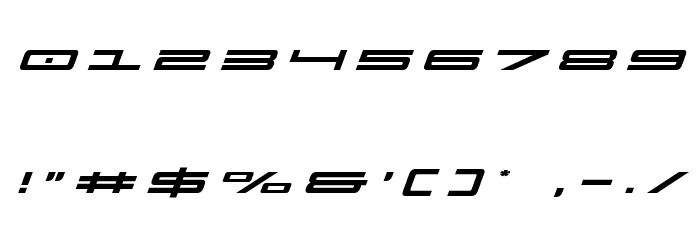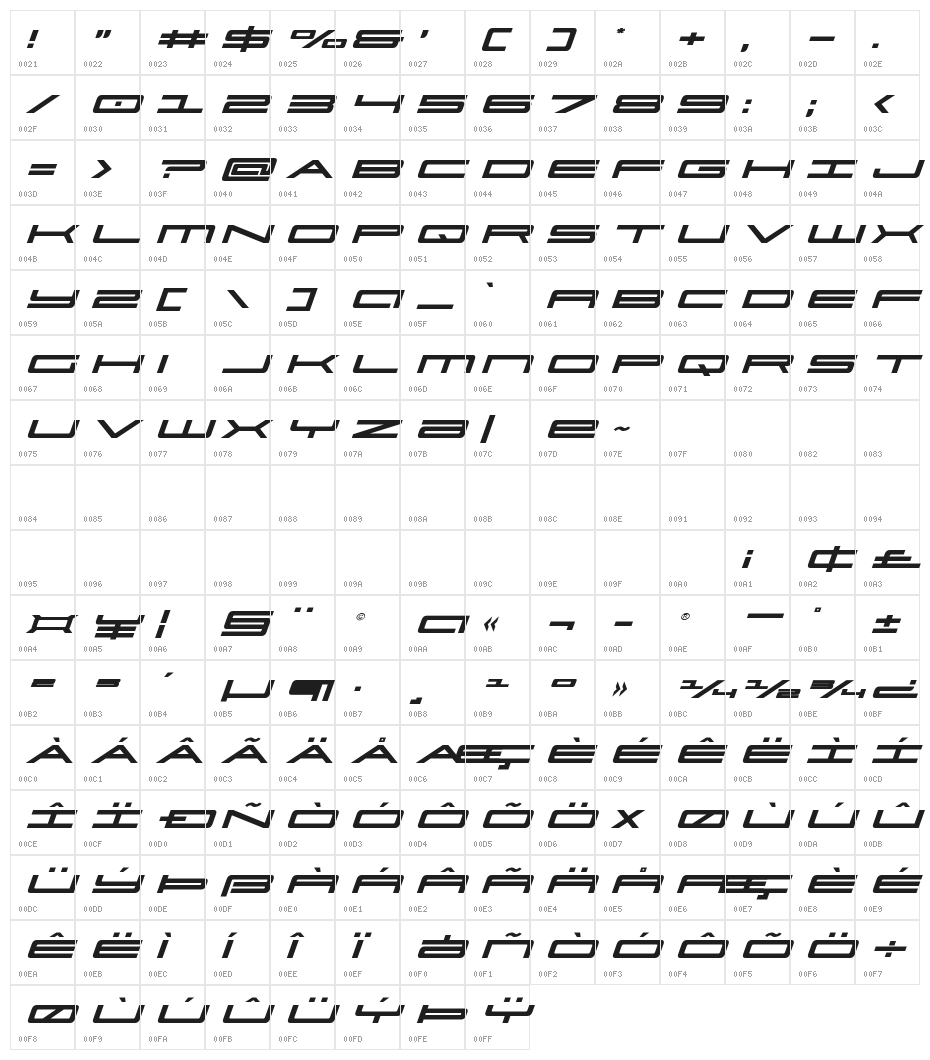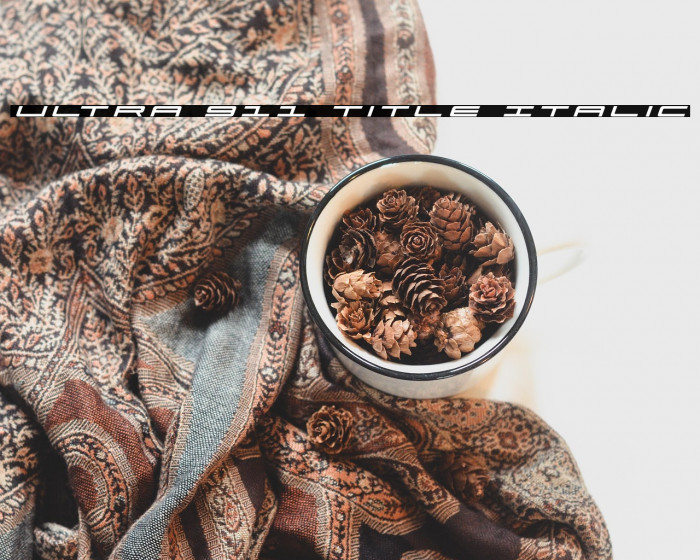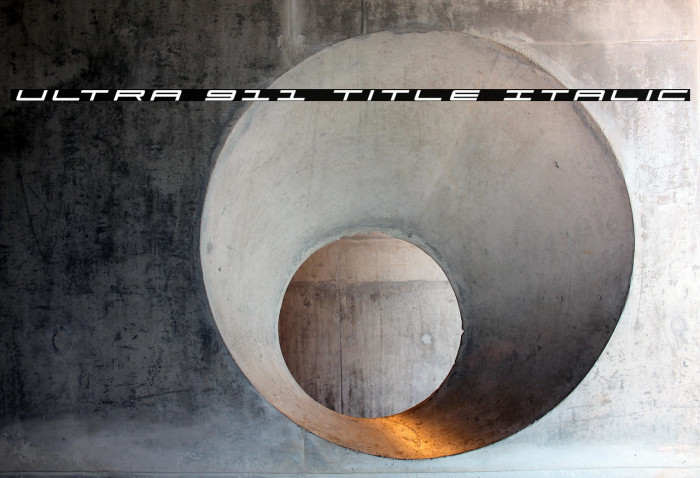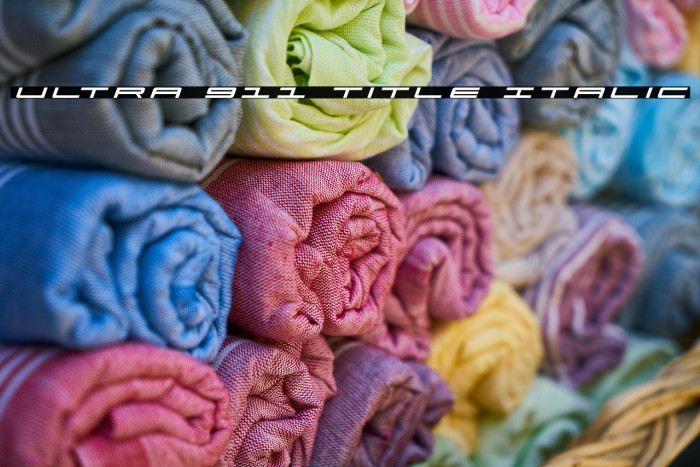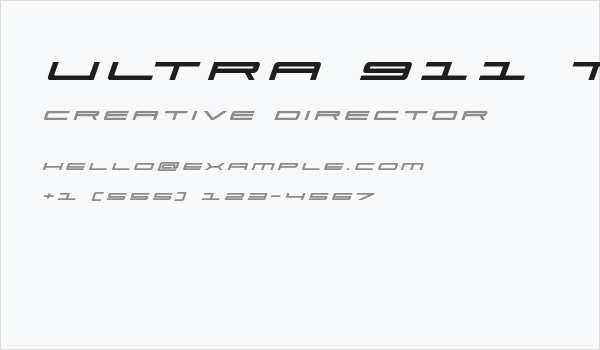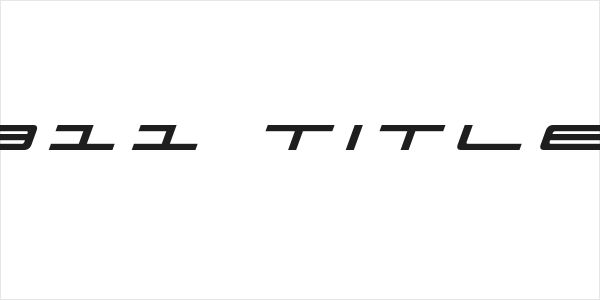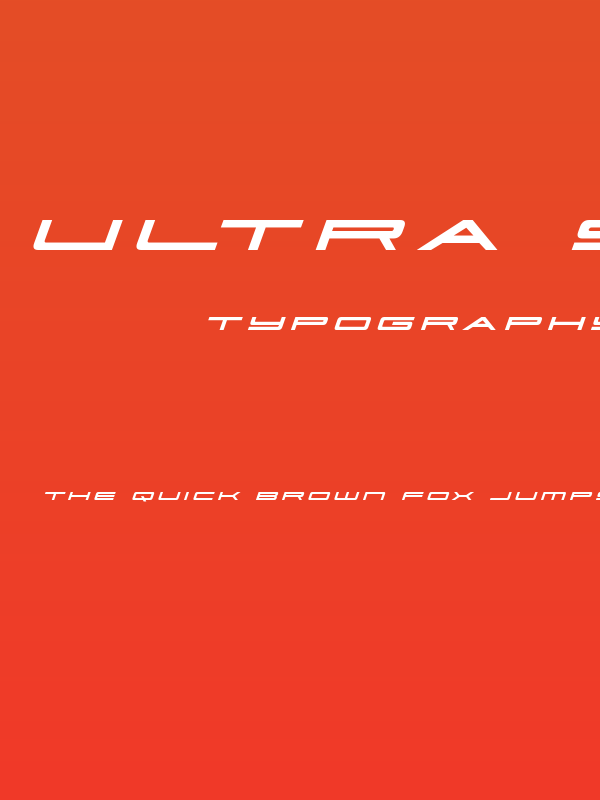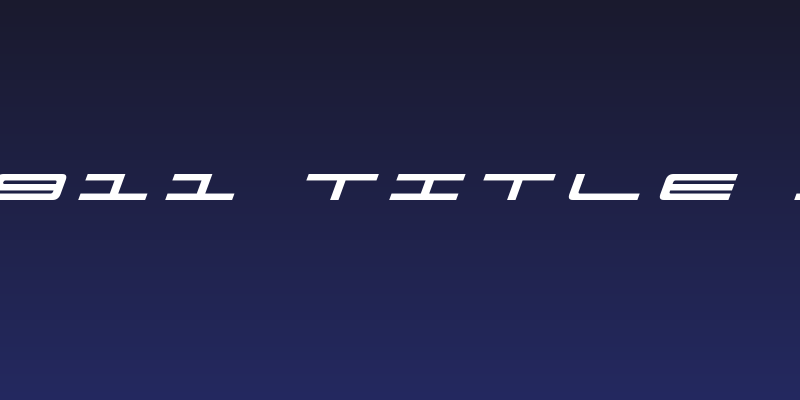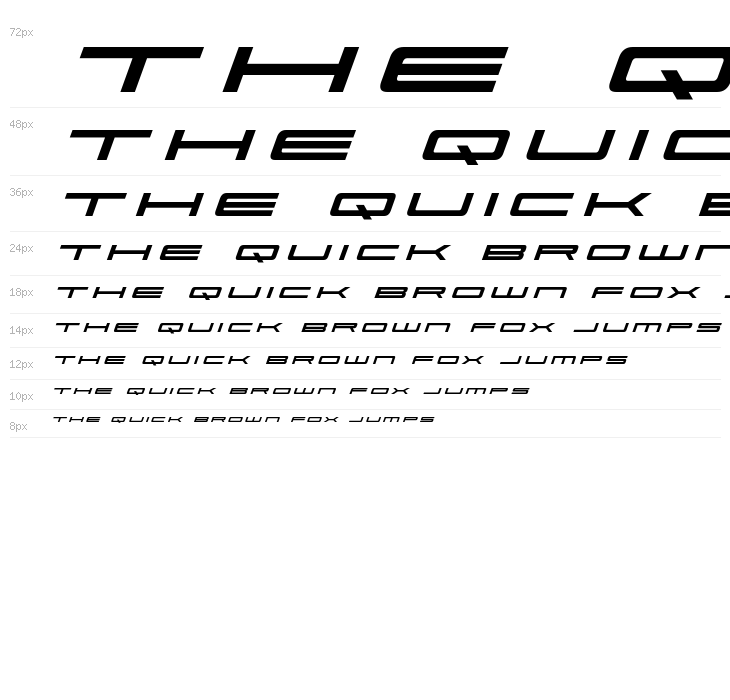
Ultra 911 Title Italic Font
Ultra 911 Title Italic Description
This font features a sleek, futuristic design with a distinct italic slant, giving it a dynamic and forward-moving appearance. The characters are sharply angled with clean, straight lines, creating a sense of speed and modernity. The uppercase and lowercase letters maintain a consistent style, with the lowercase mirroring the uppercase in form and structure. The numerals are equally streamlined, fitting seamlessly with the overall aesthetic. Special characters are designed with the same angular precision, ensuring uniformity across all glyphs. This font is ideal for projects that require a modern, tech-inspired look.